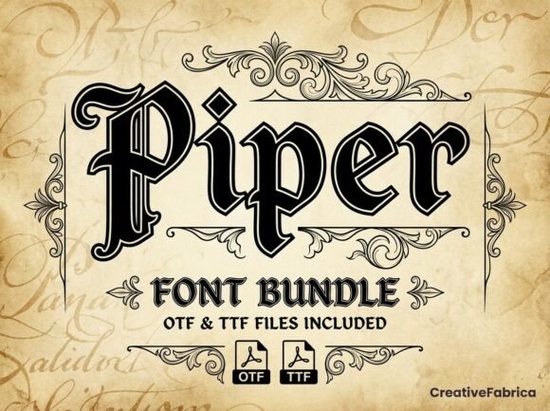
If you’ve been searching for a blackletter font that balances historical authenticity with modern usability, Piper Font is worth a closer look. Designed with the ornate flair of medieval manuscripts and old-world signage, Piper brings bold, angular strokes and intricate detailing to your creative projects without sacrificing legibility or versatility.
Unlike overly decorative gothic fonts that can overwhelm a layout, Piper strikes a thoughtful balance. It’s detailed enough to feel authentic but structured enough to work well in both headlines and short blocks of display text. Whether you’re designing craft beer labels, vintage-style apparel, tattoo flash sheets, or dramatic poster layouts, this font adds instant character and depth.
What makes Piper stand out among blackletter fonts?
Blackletter fonts often fall into two camps: either too rigid and hard to read, or so stylized they lose their gothic roots. Piper avoids both pitfalls. Its letterforms echo traditional Fraktur and Textura styles but are carefully refined for contemporary use. You’ll notice subtle flourishes on serifs, tapered stroke endings, and consistent spacing all of which help maintain visual rhythm across words and lines.
The bundle includes multiple weights or stylistic alternates (depending on the version you choose), giving you flexibility without needing to switch typefaces. This is especially useful if you’re layering text over textured backgrounds or pairing it with script or sans-serif companions.
Who should consider using Piper Font?
- Print-on-demand sellers creating vintage-inspired mugs, T-shirts, or wall art
- Craft brewers and distillers looking for label typography with heritage appeal
- Tattoo artists designing custom flash or client mockups
- Small business owners building brand identities for bars, bookshops, or artisanal goods
- Graphic designers working on editorial spreads, posters, or album covers with a gothic or historical theme
Because of its strong personality, Piper works best as a display font meaning it shines in headlines, logos, or short phrases rather than body copy. But that’s exactly where blackletter fonts belong. Used thoughtfully, it conveys authority, tradition, or even rebellion, depending on your context.
How to pair Piper with other typefaces
Pairing blackletter fonts can be tricky. The key is contrast both in style and weight. Avoid other highly decorative fonts. Instead, try clean, neutral companions like:
- A geometric sans-serif (e.g., Montserrat or Futura)
- A classic serif (like Garamond or Times New Roman) for editorial uses
- A minimalist slab serif for industrial or craft-themed projects
Keep your secondary font simple so Piper remains the focal point. In most cases, one or two supporting typefaces are plenty.
Tips for using Piper effectively
- Avoid tight tracking: Blackletter fonts need breathing room. Increase letter-spacing slightly for better readability.
- Use generous leading: Especially in multi-line headlines, extra line height prevents visual crowding.
- Test at scale: What looks sharp at 72pt might become muddy at 18pt. Always preview your final output size.
- Limit usage: One or two words in Piper often make more impact than a full paragraph.
Remember, the goal isn’t just to “use a cool font” it’s to communicate mood, era, or attitude. Piper excels when your project calls for gravitas, craftsmanship, or a nod to history.